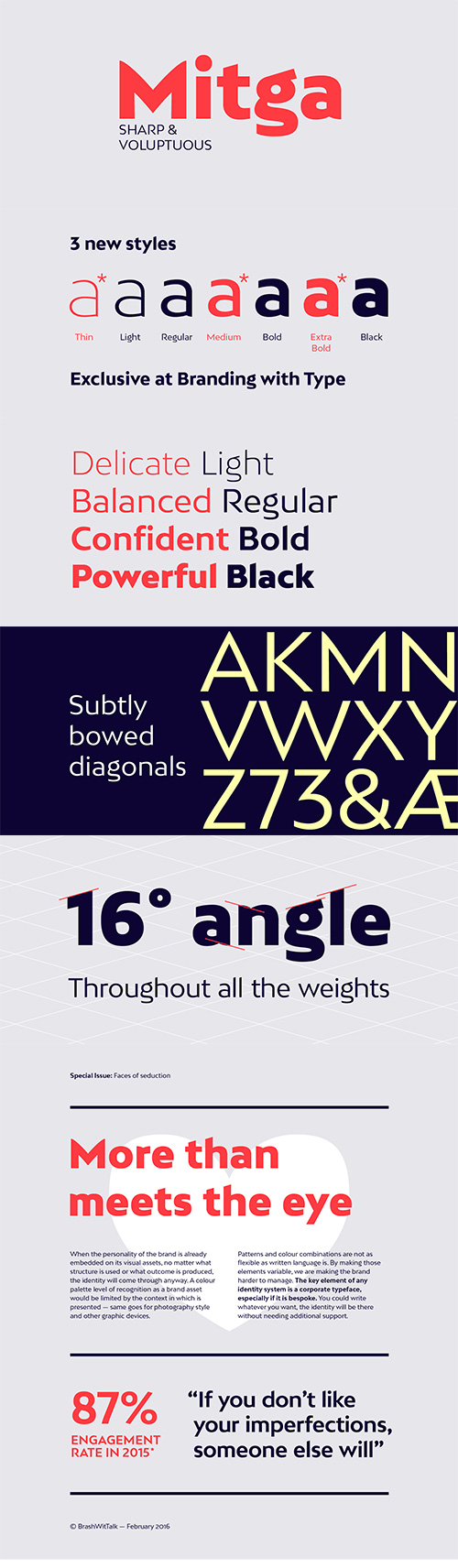
- Bw Mitga is a sharp & voluptuous sans serif. A consistent 16° angle running through all the weights is topped with subtly bowed diagonals, giving Bw Mitga its unique and strong personality.
- It’s available in 7 styles and it’s suited for display and medium length body copy purposes, making it the ideal candidate for branding projects.
- Bw Mitga covers all Western Latin languages and it features many OpenType features like old style and tabular figures, case sensitive forms or fractions.